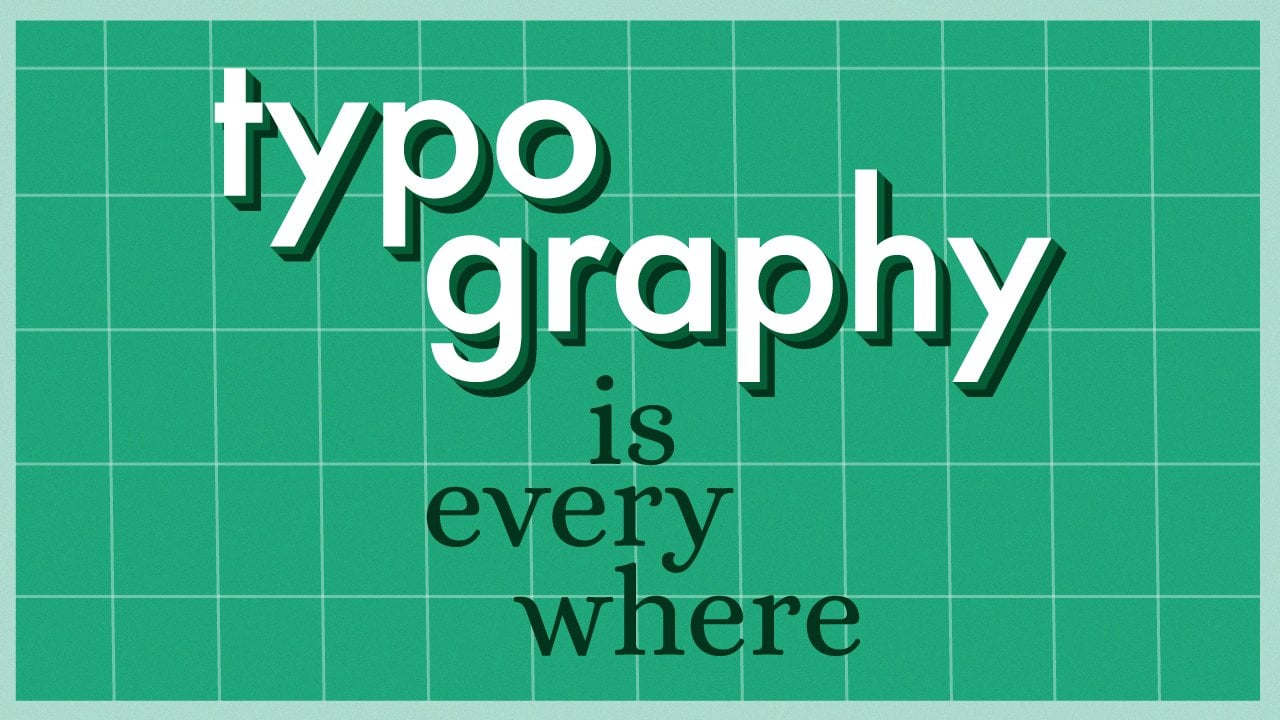
Typography is Everywhere: Navigating Fonts, Tone & Composition
Type is everywhere! In our emails, social media posts, street signs we drive by and someone designed all of it. There’s a lot you can express with fonts that already exist.
In this class, you’ll learn how to communicate with type! You'll learn basic terminology, how to pick and pair fonts, and arrange those fonts in a captivating composition.
We’re all designers in the digital age. So this class is for everyone! But especially for creatives, content creators, and graphic designers looking to improve their social media posts, portfolio websites, or work as a whole. When you understand how to work with type, it improves your everyday visual communication skills and you can communicate tone, importance, and meaning effectively.
Throughout this class you will learn:
• What typography is and basic terminology, like type families, kerning, and leading.
• How to communicate tone using keywords and selecting appropriate fonts.
• How to sketch ideas and then bring them to life using design applications like InDesign.
• How to self-critique save your files to be used in the world!
No prior knowledge is required for this crash course in typography, but some basic drawing skills and familiarity with programs like InDesign, Illustrator, and Photoshop will be helpful.
1. Introduction: Are you jealous of letters? Have you always wanted to get into hand lettering, but just don't have the time or tools? Try starting with typography. There's a lot you can express with fonts that already exist. When used intentionally, typography can convey theme, mood, and set the tone of your project. Hey, I'm Caroline, a graphic designer and artist who has always been fascinated with Type. One of the first graphic design classes I took in college was typography, and it really opened up my eyes to how type is everywhere. It's in our emails, it's in our social media posts, it's on the cereal boxes that we see every morning, it's on the street signs that we drive by and somebody designed all of it. It really made me realize that everything from the text in our books to movie posters was thoughtfully made design. In this class, you'll learn how to communicate with type. Typography is the art of arranging type to make the written language readable, legible, and expressive. It's how you say something, like the voice you speak with. Today typography is a very accessible and popular field. We went from having a few styles of Britain language that were controlled only by a handful of skilled artisans, to probably millions of styles that can be controlled by anyone with basic software on their computer. We're all designers in the digital age. That's why this class is great for everyone and everything. It'll be especially helpful for creatives, content creators, or graphic designers who are looking to improve their portfolio websites, social media posts, or really bodies of work as a whole. Even traditional artists can get something from this class. Because it teaches you basic visual communication skills that help you communicate meaning and tone in everything you do. We'll start with basic terminology. You'll learn everything from what is a glyph to the difference between leading and kerning. Then we'll go over how to pick and pair fonts. There's a lot you can express when you understand what fonts have been associated with moments in culture and history. Finally, we'll practice how to arrange your type into a captivating composition. For your class project, you'll design a postcard to promote an event, real or fictional. You'll go through the process of sketching ideas, designing the postcard, and then critiquing your own work, the full design workflow. To streamline this process, I've prepared a workbook with a series of exercises so you get a chance to experiment and get a feel for what fonts you're drawn to you and when they are most appropriate. No prior knowledge is required to join this class. But a basic knowledge and familiarity with programs like InDesign, Photoshop or Illustrator will be super helpful. By the end of this class, you'll not only have a beautiful postcard, but also a way to express yourself with the fonts that already exist out there. Let's look at the world through the eyes of a designer. 2. Project: To practice your new topography skills, I'd like you to create a five by seven inch postcard to promote an event of your choice. This is a common design project that exercises basic topography and composition skills. We'll get to go through graphic design workflow of sketching, designing on the computer and critiquing ourselves. After you finish making your printed postcard, you'll also have the option to design a digital social media posts for Instagram. Before we even start, you'll need to come prepared with a few things. You'll need the following pieces of information for your final project. Event title, date and time, location, a sentence or two describing the event, dress code of the event, and how people can RSVP. This can be a completely made up event, or it could be one of your favorite events that you've been to before. You'll have to decide what program you'll be working on. I'll be working on In design because that's what I'm comfortable with and what I normally use to create printed design materials. You can also use Illustrator or Photoshop, whatever application you're comfortable with. In the project resources, you'll also find a workbook to help you perfect your skills along the way with almost each lesson. Follow along with a quick exercises which will offer more interactive and visual ways of learning about topography. There will also be a reading list and a bunch of resources that will help keep you inspired and learning the terminology and giving you example of how you can design in your own projects. Let's get started. 3. What is Typography: Let's start with the question that everyone's wondering, what is typography anyway? Typography is the art of making the written language legible, readable, and expressive. Let's talk about those three things a little more in detail. Legibility is the quality of being decipherable. Can you actually read the language? An example of legibility can be seen in display typefaces versus text typefaces. Display typefaces should only be used for large text, like titles and headlines, because they are less readable at smaller sizes. Texts or body typefaces, on the other hand, work well at smaller sizes. For example, the original Garamond was designed to be highly legible and printed and designs with a lot of small text on the page. Problems with legibility, it can leave your readers unable to understand what you're trying to communicate. Readability is the quality of being easy and enjoyable to read. An example of a readability issue was seen in the 2000 US presidential election ballot, where a misaligned rows became confusing to voters and some people even voted for the wrong candidate. Problems with readability can leave the reader understanding your language and what you're trying to say but they might have a hard time getting through it. Expressive as the fun or appropriate style that you as the designer to the arrangement of that type. Don't be afraid to have some fun while working on your designs. If you're properly communicating and organizing the information that you need to communicate to your readers and you have fun while you're doing it, people will notice, and that's 1, 1 plus 1 equals three instead of just two, it becomes something special and more. An example of expressiveness is found in movie posters. You might see one and maybe don't know what the movie is about, but you can get a sense of its tone, time period, etc Just from seeing the poster. These two posters for two very different movies, both use similar typefaces and their titles, but Singin' in the Rain is laid out in a playful bouncy and curvy way, while Psycho is splitting or breaking up or shattering and a very unsettling. Typography is the art of making the written language legible or clear to understand, readable, or easy to understand, and expressive or fun or appropriate to understand. Next, we'll cover the basic building blocks of type that will help you quickly choose your fonts for your design projects. 4. Basics: Type Families and Spacing: Now that we've defined typography as the art of making the written language legible, readable, and expressive, let's learn more about the building blocks of what makes up type. In this lesson we'll start building your type vocabulary which will help you to quickly decide on which fonts you want up front in your design process, and be able to make the small spacing tweaks that will make a big impact in your designs. When I was first learning typography, of course, my professors gave me a ton of books to read, a ton of worksheets with the definitions all laid out for me, but it wasn't really until I actually saw type that I began to grasp those concepts. What I mean by seeing type is looking at old methods of type that everything on the computer comes from. Different terms like leading and glyphs, all come from letterpress and movable type. I'm going to teach you the following important definitions by explaining a bit of traditional methods of printing. People have been using letterpress machine since the 15th century. Typesetters carefully assembled little metal or wood-puzzle pieces into words, sentences, and even pages of type to create book pages, posters, anything with printed type on the bed of a letterpress machine that was then inked, enrolled onto piece of paper like a big stamp. The puzzle pieces I mentioned that those typesetters were grabbing are the basic building blocks of a typeface. They're called glyphs. A glyph is a specific shape design or representation of a letter, numeral, or symbol. This is actually a glyph that represents two letters coming together called a ligature. Groups of glyphs in one style, weight, and width make up a font or a typeface. Just so you know, there is a technical difference between a typeface and a font, but nowadays people just blur the two terms together and use them interchangeably. Let's take a look at a typeface everyone knows. Times New Roman Bold, where bold defines the weight. Times New Roman Regular is a different typeface where the weight is lighter. If you only have to use these two very similar but very different typefaces in your design, you would still have a lot of flexibility and ability to build that strong communication that your audience is looking for. For example, you could start by setting all of your type in regular, and then where you think different areas are important, you could bold those and that way they would stand out from the regular, and you would have a really great hierarchy getting started and a great communication that tells your audience what's more important than the other text. Times New Roman Bold and Times New Roman Regular are each their own typeface, but they have a particular design that they share, thus they make up a font or a type family called Times New Roman. The whole family is made up of Times New Roman Regular, italic, medium, medium italic, semi-bold, semi-bold italic, bold, bold italic, extra-bold, condensed italic, and condensed bold. That's a lot of typefaces. That's why it's best to start your design process by picking out two or three typefaces that you want to work with so you won't get overwhelmed. Factorial letterpress machine. We already talked about glyphs and the type families that get printed onto the paper, but we haven't talked about the spacing pieces. These pieces are invisible and they don't get inked or even printed but they're necessary to build your design. There are two types of spacing that we're going to talk about that is essential to any design project. The first is kerning or the adjustment of horizontal space between glyphs. This spacing is meant to create uniformity in the type when your eyes glide across the words. Your computer will automatically space things, but it's up to you as the designer to really use your eye to see if anything's looking funky. For example, you could have one word that has too much space in the middle of it, and then it starts looking like two words, and that obviously is going to affect your legibility and readability that we talked about in the last lesson, so you want to make sure that everything is looking together and looking uniform. You could also have the opposite issue, where things come together too closely and then your word just ends up looking like a big old blob, and that will obviously affect legibility and readability too. Pull out your workbook and turn to the kerning exercise. There are three paragraphs here. One has a good amount of kerning, one has too much kerning, and one has too little kerning. If you can't determine which paragraph is which, squint your eyes or remove your glasses to get a better sense of the overall color and spacing. Another kind of spacing is leading, which is the vertical space between lines of type. Similar to kerning, you don't want the spacing between your lines to get distracting for your reader. Use leading strategically to help build different groups in your lines of text or create a negative space or a break for your readers eye in the composition. Pull out your workbook and turn to the leading exercise, which has a set of information that could be found on a movie poster. Cut and arrange the lines of text and space them out vertically in different ways to see how you can group different lines and change the rhythm for your reader just by using vertical space. That was a lot of texts, background, and definitions, but hopefully learning about the history of the letterpress machine will help you grasp some of these concepts. Don't forget the constraints are your friends. Don't go crazy by working with too many fonts. Pick a couple of fonts within the type family to stay cohesive. Avoid distracting space between your letters or between your lines of text. These tips will really help you get started on any design project. In the next lesson, we'll move on to a more fun part of building our type vocabulary, and learn about the different styles of the typefaces that we were just talking about. 5. Next Level: Classification and Tone: Now that we've learned to start your design with just a couple of fonts and to avoid distracting spacing, let's talk about how different styles of fonts are categorized or classified. This will really help you pick appropriate fonts for your design process. We could really get into the weeds and talking about type classification or the different styles of typefaces, but let's just talk about the big umbrella terms. You don't need to know the little subcategories and all that stuff. I don't even know that. If you know these basic umbrella terms and the basic skeletons of the different styles of typefaces, you'll be able to really quickly pick out what's appropriate for your design. Let's go over the groups that all typefaces fall under. Serif, with decorative strokes at the ends of their main strokes. Sans serif without serifs. Script, derived from handwriting or calligraphy and decorative typefaces, which is a very diverse category that is more ornamental and doesn't really fit into the other categories. Instead of just looking at the basic definitions and all that boring history that comes along with each of these categories, let's focus on the tone that you want to communicate and figure out which typefaces fall under those tones. One of the first steps in your design process, will be selecting your typeface or typefaces that you're going to be using throughout the whole process. Before you can even do that very important step, you need to backup and ask yourself, what tone am I trying to communicate? Once you have that answer, you can appropriately select your typefaces and that way they'll be consistent with the tone that you're trying to communicate. Here are some examples of fonts and the tones they represent, and how they do fit on some instances, but for some situations they don't work so well. San serif typefaces like Univers or Helvetica are really straight forward and clean. They don't really have a tone, so they work well to communicate straight forward information like street signs. In contrast, it would be super strange to have a black letter font on street sign because it's really dark and heavy and gives a weird gothic tone. San serif fonts like Futura or Avenir work really well in many applications. They're very clean and clear and look like basic shapes. In contrast, it might look weird here to use script font like Mistral or Sign Painter because they feel to human made, have too much personality. Serifs like Bodoni or Didot are dramatic because of their high contrast, and they work really well in modern and fashionable situations. In contrast, it would be really strange here to use an inscriptions typeface like Optima that looks chiseled into stone or engraved into metal. It appears really important and long lasting, but it's a little too official or ceremonial. Script fonts like Snell Roundhand were derived from centuries old cursive handwriting. They look, super elegant and formal. In contrast, here on table cards for maybe a wedding, it would be really strange to use a heavy and compact font, like knockout or impact. Those just look really heavy, bold and modern. I would avoid that very thin typefaces for large areas of texts because they can easily disappear when they get to a big scale. For small text, some typefaces were designed specifically for that use. For small body copy, I would recommend using serifs like Minion, Garamond or Times New Roman, or sans serifs like Myriad and Avenir. Of course, these are just recommendations, and you can totally bend the rules if that's what's best for your project. This process of figuring out which typefaces to use for your project should be pretty intuitive, but if it's not really coming to you, you can totally look at different books or use your computer to figure out what different typefaces were used for. If you're making a spooky movie poster or you can just google typeface for boogie movie poster and I'm sure a hundred things would pop up. Don't feel too intimidated by any of this, it will come to you. The best way to experiment with tone and type is to practice. Take a couple of minutes to match the different fonts below with the tone words above that they pair up with. See how intuitive and easy it is to associate tone with fonts. While we're talking about tone, let's move on to the next exercise where we'll start thinking about our final project for the class. Here I want you to brainstorm a few words, that sum up how you want your final project to feel. Refer to these keywords as you design to keep you on track. For my garden party project I already brainstormed a few words that I immediately came up with. From this list, I am going to select just a couple. I think I'm going to do something that's really modern felling, and then maybe something moody. That's different from when you first think of garden, which you would probably think of like flower and bright. That's what first comes to my mind anyway. I'm going to try doing this slightly unexpected twist on the garden party that's a little darker and moodier. Once we get on the computer, we'll pick our fonts. Just focus on deciding your tone words for now. Your keywords can be anything, but make sure they somewhat relate back to your event theme. Get brainstorming. Don't forget to start by picking out your font or fonts by asking yourself, what tone am I trying to communicate through this design? Pick your typeface or typefaces based on that tone that you picked. If you're not sure if your typeface is appropriate for your design, search for information online or in books. In the next lesson, we'll talk about a little more advanced part of the process, which is combining typefaces. 6. Advanced: Combining Typefaces: We started building your type vocabulary by looking at type families and different spacing, and by looking at how different typefaces are falling into different styles. Now we're going to do a next level stuff and figure out how to combine two different fonts in your design. You don't always need to combine two different fonts, but it can be helpful if you decide that your tone is formal, for example. You want to use a really cool, really bouncy, swashy script font. That's great, and for the title of your event, if you're making an event invitation or something like that, that script font could work really well. But if you're going to have smaller text on the page like dress code information, for example, you might not want to use super small script font because that can all mush together and just be really hard and uneasy to read. In that case, you would want to use that script font for the bigger text in your design, and then a really clean simple font for the smaller text in your design. That way you're maintaining that really great legibility and readability for your audience. You want to find a balance when finding a pair of typefaces that work well together. They shouldn't be so similar that they look almost identical, just use the same font if they look that similar. They shouldn't be too different where the overall tone of your project gets a little lost. Here are two super simple formulas to help guide you in your font pairing process : bold plus thin and personality plus neutral. Let's talk about some examples of combinations and why they work and why they don't work. Playfair Display and Roboto. they work because serif with some personality for larger text and a clean sans serif for smaller text really complement each other well. Bodoni and Playfair Display. They don't work so well because they're too similar and they don't have enough contrast. Dancing Script and Open Sans, they work. Because it's a bouncy leaning script to make a statement with personality, in an upright sans serif to hold the smaller text together, they work really well. The sans serif really grounds the script. Dancing Script plus Lobster. They don't work so well because they each have their own really distinct personality and the overall tone that is trying to come through just gets lost in the competing styles. Futura Bold plus Georgia. They work because the bold sans serif and the thinner serif really contrast each other nicely. Again, there are no right or wrong answers here. You compare whatever font with whatever other font you want. But if things are looking funky, you can always head online and see if people have paired those two fonts before. If you already have one typeface selected and you're not sure what to pair with it, I'm sure you could look it up and somebody has an answer. In this section, you can cut out different title options and different headline options, and just play around with how they pair together. Are they too similar? What combinations are coming through that you like and think work well? Combine typefaces when you want or need variety. Follow the basic formulas: bold plus thin and personality plus neutral. Have fun and experiment with your type combinations. In the next lesson, we'll take a look at the big picture and learn how to design a composition that helps strengthen your typography. 7. Composition & Hierarchy: We've learned all about the basic and advanced skills involved in topography. Now it's time to get designing and to make a composition that will really show off the topography that you've spent so much time learning and perfecting. In order to do that, we're going to talk about composition. Composition is how elements on your page will be arranged. You get to do that, it's a little scary, just staring at a blank computer screen or a blank page but I do have a tip that will help you get started and not be afraid of the blank page and it's called a grid. Grids will make up the framework of your projects composition. It is always better to set up a grid when you're starting your designs because once you draw up the grid guidelines, you don't have to think about where the design elements should go. They should all line with each other on the guidelines you've already made. No more mysterious blank page. Grids will also tell you if your elements are aligning with each other or if they're a little off to the side and you need to scoot them over a bit. You always want everything to align within your grid and your composition because that makes a really strong structure. Like in architecture, when you're building a skyscraper, you want all the pieces to align and support each other, which will strengthen the building and provide a safe space for people to move around inside. You don't want pieces hanging off of your design because that creates a very unbalanced and unsafe space for your design elements to live in your page. Here are some examples of basic grids that will help you build a strong structure for your design. One column grid, two column grid, three-column grid, and modular grid. You can make a 10 column grid if you want to. It's all up to you and there are no right or wrong answers. When you start up your grid and start placing your type and imagery with it, you should always keep hierarchy in mind. Hierarchy is the organization of your design elements according to importance. Consider hierarchy throughout your process because that will help you make decisions. For example, if you decide that your title of your event is really important and the most important thing that should be in your design, make it really big and centered on the page. If you need to include a certain picture with a certain photo credit, that's maybe less important information, so you might want to shove that in the bottom corner and make it really small. If it helps, once you have all of your text, make a list of how important the text is from most important to least important. Then let that guide your design process and help you decide things like size, relationship of your texts and what elements should we placed on your grid. If you're lost and you don't know where to start in picking out your grids, don't worry, we will go over that in the next lesson where we will do thumbnail sketching exercises. These quick thumbnail sketches, you can quickly try a bunch of different grids on a piece of paper before you even go on to the computer and see what might work for you and what might not work for you. It's all trial and error. Let's spend about 10 minutes laying out the lines that we used and cut out in our letting exercise earlier. Now feel free to change up the spacing completely. See how many different layouts you can make and how they change the rhythm and pace of the text. Let's do a quick recap. Don't forget to set up a grid as a framework to your design projects. Design your composition with hierarchy or order of importance in mind. In the next lesson, we will start thumbnail sketching and practice making these grids and compositions. 8. Thumbnail Sketching: Earlier, we picked our 2-3 tone words or keywords that will describe our entire project and keep us on track. But up until now, we haven't really even worked on our postcard project until now. Now, we are going to start sketching and coming up with ideas on how our composition can come together. We're going to do that by doing some quick thumbnail sketching. I want you to do at least 15 little thumbnail sketches. In thumbnail sketching, you are going to draw a series of little boxes into a grid. You're going to make little notes inside of your little box. Those notes are going to be the sketches of how you want your composition to be laid out. You're going to make these really quick, really simple, abbreviated sketches just to get out as many ideas as you possibly can. Here's a blown-up version of one of these little boxes. Fill it with a bunch of shapes. The shapes are going to be abbreviations for pieces of your content. For example, you can use a big rectangle that's really dominant in this little sketch, and that'll represent a big piece of type. You can make slightly smaller rectangles or shapes to abbreviate your medium size type, and then really little shorelines for your smallest text. If you want to add them photos or illustrations, you can make a little shape with an accent side, and that'll be the abbreviation for your photos. Then if you want to make any other decorative elements maybe a border, you can just add squiggles. When I first learned this thumbnailing technique, I was always told to do at least 30 thumbnail sketches. I remember at first being, there's no way I can ever do 30 sketches. But once you start going on just flows out on the paper, and you can always take breaks. You don't need to sit down and do 15 or 30 or however many you want to do all at once. You can always do five and then take a break, come back to it, get ideas from what you've already done, and maybe switch things around a little and make a few more sketches. I'm going to start with my garden party sketches, keeping in mind different grids, seeing how I can start with my most important piece of information, the title and still other information, like the date and location around the title. I'll try a one column grid, a two column grid and more modular grid, maybe some more diagonal movement where the pieces are coming down in steps. I'll try moving the title around the composition, and again, moving everything else around that title. Push past the basic first ideas that pop into your mind and get to something really interesting and thoughtful. It's always really fun to see how you come up with two, I move the title around in different ways, experimented with doing a little horizontal and vertical and the layout. When you think you can't sketch anymore, draw one or two more to see what you come up with. Now I can look at all of my sketches and pick out my favorite one that I want to pursue. I think I want to pursue the 14th sketch here. I think it has some nice movement, some diagonal movement, and then a little room for some flourishes in the corner there. I'm going to pick up that one sketch. Once you're done with all your sketches, look back, pick out your favorite one, maybe the one that you're most excited about, maybe one that you're not sure about, but you want to see it become real on the computer. Continue making all of your sketches until you're happy. pick out your favorite sketch, and join me on the computer in the next lesson. 9. Print vs Digital Workflows: If you're just making a printed postcard for your project, feel free to skip this lesson because we'll be talking about print workflows versus digital workflows. If you do want to make a digital element and redesign your postcard into a digital Instagram ad, then feel free to stick around. If you work on a job like this for a client, you will probably have to make print components and digital components, and it can be really great to learn the skills needed to transfer one to the other. Something I like to do is start with my printed designs, because they require more attention to detail, and higher resolution assets like imagery and photos illustration. Here are some common specifications and considerations for designing print materials. Print is always more costly, so you would have to ask, does it fit into your budget? You always have to work with higher resolution assets, at least 220 DPI. Work in a program that's more suited for print like InDesign. You'll also have to work and save in CMYK color mode or cyan, magenta yellow and key or black. Save your file as a higher resolution, ideally 300 DPI file, like a PDF. Here's some common sparks and things to think about when designing digital materials. Digital materials are free to post unless you pay more for ads to be boosted or posts to be boosted. You can always work with lower resolution assets that are at least 72 DPI. You can work in a program that's more suited for digital like Illustrator or Photoshop. You can work in RGB color mode or red, green, blue. You can save your files as lower resolution files, at least 72 DPI, JPEGs, PNGs or GIFs are common. Now, I'll talk more about setting up our files on the computer. 10. Set Up Your File: Before we really jump into designing, will need to set up our files on the computer first. As I mentioned before, I'll be using InDesign for this project because it really focuses on typography and printed materials. Illustrator focuses more on things like vector illustrations and Photoshop focuses more on photo editing. If you are working in programs like those, you can still find the same tools, but it might be harder or they might have a lot more limitations than in InDesign. Step 1, create a new file, go up to "File", "New Document". Name your file. I always change the units to inches and put the size 5 inches by 7 inches. You can always press these little buttons to change the orientation from horizontal to vertical. Uncheck "Facing Pages" make sure you set your margin, so they aren't too close to the edge of the page. Use at least three-eighths of an inch or 0.375 inches of space on all sides of your paper to make sure elements don't get cut off the printed page. Set up your bleeds so your printed file will have color or images that run all the way to the edge of the page. Step 2, set up columns and rows. This is when we start to set up our grid. Click ''Set Guides'' to margins so they will always stay in the margins once we set them up, check preview, so you can see what it will look like once you start changing the number of columns and rows, start by setting something up that looks like your thumbnail sketch. For example, my sketch used a three-column grid, I'll start my file with three columns. You can always change it if it's not working out while you're designing too, and it's really good to try out different grids once you have all of your texts placed. Here's a very important quick workflow tip. Always save your design every few minutes. When you have a break, get to a stopping point and just go ahead and quickly hit Command S it'll just become second nature to you and it's always great to save if your computer crashes or if InDesign or whatever program you're using crashes, you don't know if that's going to happen and it could happen at any time. You always want to keep saving as much as possible, so that way you don't have to go back and redo the things that you've already spent so much time working on. Step 3, create your Text Boxes. Copy and paste or type in your event text into your new document. Arrange in your grid according to your thumbnail sketch. Sometimes working with your actual words fit very differently on the page than when you imagined how they would fit in your sketch. Right now just go all the text on your page and place it roughly according to your sketch. Then set each Text Box roughly in the correct size that you want. For example, here I've created three sizes or three levels of text, large, medium, small. It's easier to keep spacing consistent if you keep your texts together in less boxes. Don't separate each and every line into their own textbox. Next, we're going to pick out some colors, look for inspiration on websites like Pinterest or Adobe color and start with two colors. You can always add more later and you don't want to get overwhelmed to thinking about color. After all, your focus should be on typography, but you're going to want to pick your colors with your keywords or tone in mind. One of my keywords was moody. I'm going to pick a darker, moodier background color to go with that tone. You want to create swatches to use throughout your process. You can adjust the swatch and if you ever need to tweak the color, it will change everything that set in that swatch, which makes deciding your colors really easy and ensures that you're using the same colors across your whole design. Then for my text color that's going to be on top of that dark background. I'm going to go with a lighter color that will look good and readable. Pick your two colors and get ready for the next lesson where we will be diving more into designing our postcards. 11. Design Your Postcard: We've set up your file, we've sketched out a bunch of sketches, now it's time to finally get designing. Step 1, you are finally going to pick out your typeface or typefaces. Now you already should have your text, copy it and paste it or typed into your document. But it's just sitting there in the default setting. You didn't pick this type, the font was just generated by your program. Now we're actually going to think about your tone, keywords and pick out your typefaces appropriately. I know I want to use two fonts, one for my title and larger texts that helps my modern tone come through and one for my smaller texts that can be clean and easy to read. When I think modern, I think of something like Bodoni that's dramatic. Let's try Playfair Display or some Google font that's a little more modern and up to date. That looks pretty good to me, very modern and sleek. Now I want something clean and simple, easy to read that pairs well with that Playfair Display font for my smaller text. Let's try a few different things. There's a lot of clean sans serif fonts that I often use. Let's see what looks best with Playfair Display. Open sans, looks pretty good to me and it's also Google font, if you want to download that. It's helpful to use the eyedropper tool to copy characteristics of one textbox to another. Just pick the eyedropper tool, select an area of type and then highlight another area of type that you want to copy the characteristics over to, so now they're the same. Now we want to check out our line breaks now that we have the rough placement size typeface that we want. You don't want any hyphenation on because the line breaks can be distracting when there's only a little bit of text on your page. Make sure you check off the hyphenation and make sure all of your lines are roughly the same length, so none are distracting really short or long compared to the others. Now that I have the text set pretty close to how I wanted it to, I am actually going to adjust my grid because I think I can get my composition a little tighter. It's a little spread out. I think there's too much space between garden and party and they become too disconnected. I'm going to delete my original guidelines and try some new columns and rows until I feel like the spacing makes sense. Again, this is all trial and error. Step 2, you're going to look at your colors again. Now you should already have two colors at least in your document, but now that you have your typeface picked out, you should really see if the colors have enough contrast with your type. For example, I'm using that dark background. If I use like a really thin typeface, my type on top could very easily disappear into that dark background. I would need to make sure that there's enough contrast between those two colors that I already selected. I'm actually pretty happy with my colors and I think they offer a good amount of contrast. Step 3, you are going to add imagery. This could be a photo, this could be an illustration, it can be whatever you want or you could even skip the imagery if you don't feel it's appropriate for your postcard. I found this floral image that will help communicate a garden which is where I want my event to take place. I wouldn't want to select an image of gardening tools or something that would give the wrong impression of the event, which is a formal cocktail party, not a gardening event where we're planting flowers and arranging flowers and things like that. When you create an image frame and drop an image in, you can move the frame around and it won't affect the image within, so it won't distort your image if you pull out the frame. If you want to move the image in that frame, you just double-click inside or find the circle button within the frame that changes your cursor to the hand icon, then you can drag the image around inside the frame. Instead of putting a small image on the left side of my page like I was originally thinking in my sketch, I ended up working better as a background image that spreads across the whole postcard. It really plays into the modern and moody keywords with this multiplier effect on the image. Before the image was too colorful and bright and now it's subtle and really steps back, so the typography can take center stage. After playing around with a couple of different grids and images that I did by copying my original design to make a few different pages in my document, I'm very happy with how this is turning out. Step 4, one of the most important steps is to zoom out and look at everything you've done. Change the view on InDesign so you don't see the guidelines or anything that isn't on your page by clicking "W" on your keyboard. Make sure you can see the whole page by clicking "0" on your keyboard. Play around with your design until you're happy with it. If needed, adjust your grid, move things around, realign your elements to make new groupings and levels of information to see how you can change things to improve your composition. Once you're feeling good about where your designers at, take a break, step away and come back to it, in the next lesson where we will critique ourselves and then save a final version of your postcard file. [MUSIC 12. Critique & Save FINAL: [MUSIC] Now that you have a really good draft from the last lesson, print it out or look at it on the computer and get ready to mark it up and critique yourself. This can be a really hard step in the design process, but it's really necessary for improving your skills and just making yourself a better designer. Here is your self-critique checklist. Number 1, spell check. This allows you to avoid embarrassing and very easy to fix mistakes and avoid some back and forth with your client if you're designing for somebody else. Similarly, you want to do a quick grammar check and make sure you didn't forget to put a period somewhere. Make sure that all the text is really making sense, especially if you wrote it. Do all of your elements align to your grid or each other? Make sure nothing is falling out of place creating an unbalanced environment for your composition. Also make sure none of your elements are too close to the edge of the page. Double-check your margins so nothing gets cut off in the printing process. Make sure that all of your texts is consistent. Make sure every box of text is all set in the same size, if they're supposed to be all set [NOISE] in the same font with the same letting. Do you have any overset text? In InDesign, it should let you know before you save your project if the texts goes beyond the box that you created. Do all of your colors match? Did you use the same swatches? Or maybe you got a little mixed up in your design process, and one color is [NOISE] an old version, and one object is the new version of the color. If you're working with a team or getting feedback from other people, it's really important to keep an open mind. I know in my design work sometimes I can really get excited or fixated on a cool idea I thought I had, but it's really important to listen to other people's advice. Maybe you're too focused on that one idea when really you should be focusing on a bigger picture, and people should tell you that. It's always great to self-critique, but also get feedback from others. Now it's time to wrap things up and save our files. In each program, saving can be a little different, but I'll show you how I'll go through the process on InDesign. Before I even save my project for print, I like to double-check on a few things. I need to make sure that all of my linked photos and assets are set in CMYK color [NOISE] mode. If they aren't, I'll just quickly open them up in a program like Photoshop and switch the color mode and save. InDesign automatically senses that it was edited in a new version. It'll pop up and ask you, "Do you want to use the new version?" You say, "Yes, of course." I also really like to outline my fonts because if somebody else like your printer opens your file and they don't have the typeface that you use, it could get messed up and change to a default font. You obviously don't want that to happen because it will completely destroy your design. It just takes a few minutes. You go up into the menu and click, Create Outlines, and all of your text will now turn into shapes. Make sure you go up to the Save As and quickly change the name to this file by adding a dash OL to the end of the file name, that way you can still go back and edit the text of your original document. Make any changes you need to until you're ready to save your file. Now that we're ready to save, let's go up to File Export, Save as PDF. As you're saving this new file for print, you can add underscore print to the end of your file name so there's no confusion about which files should be sent to print when you're done working on this. We want to make sure the resolution is high at 300 DPI and include those document bleeds that we set up, so your images and color goes all the way to the edge of your card. Open your file once and it's saved on your computer, zoom in to a 100 percent and just scan around to make sure that everything is looking clean. Once that looks good, it is time to send your files for print. Remember, you don't actually have to print this out, but it is a great addition for your portfolio. You finally saved your file, you have your final version of your project. Congratulations. Now you just have to upload it to the project gallery. If you want to stick around and make a digital version of this, continue on to the next lesson. Otherwise, congratulations, you're all done. [MUSIC] 13. Design Your Social Post: [MUSIC] Now that we've finished with our print files, it's time to switch over to the digital files if you want to do that. Again, this is just optional, so feel free to skip this lesson. Basically, we need to take our print files, save them as a new digital version, tweak them a little bit because it'll be a different Instagram square shape, and then we need to save these files to use them online. Step 1, make your digital file. You're basically repeating the process of making your print file now. Create a new file for web, at 1080 by 1080 pixels. Step 2, paste your print design into your digital file. Start by copying and pasting your other design into this new document so you don't have to completely start from scratch. You can just adjust your postcard design. Step 3, make adjustments. Spend some time rearranging the elements in your composition because now you have this new square shape to work within. Try moving things around or making some quick thumbnail sketches if you need to go back to that stop which might be a fast way to get your ideas out, and try a few adjustments to the composition without moving everything around your computer. Something to consider and that's nice about digital is you can always link to more information. I'm actually going to delete the description and extra details that I had in my postcard because I can just post it elsewhere. I am a bit nervous that this background image might appear too dark or disappear on some screens. I think I'm actually going to lighten it by copying the picture, removing the effect, and having the original image sit on top at a really low opacity. It looks a little brighter and lighter. Then I'm going to play around with my grid until I find something I like that goes with the postcard design but works better for this square format. I don't want to change too much, but I want to keep the focus on my clean modern typography. Now I have more room to make that event title bigger without the smaller text. Don't spend too much time on this because you've already done the main design work in creating your beautiful printed postcard. Step 4, review and save. You shouldn't have to run through the whole critique checklist again because you already did a spell-check and all that good stuff in the last lesson. Go up to File Export and JPEG is what we're going to do this time. You can add underscore final to the end of this new file name, so you know that it's your final version and the one that you want to post. We're going to save it at a lower resolution, 72 DPI and RGB color mode is totally fine. Open up the file again and make sure everything is looking good, and nothing is too pixelated or looking funky now that you've saved it. Congratulations. Now you've done both the printed postcard and the digital social media posts. "Upload" your Instagram post to the project gallery along with your printed postcard, and see how other people transitioned their designs from printed postcard to digital social media post. Let's wrap up in the next lesson. [MUSIC] 14. Other Applications: You've learned so much about typography and now it's time to get out there and use your new skills in the real world by updating your portfolio website, switching up your Instagram page, or even just writing emails. For example, if you're requesting something in an email, you can write out all of your thoughts then bold important information like deadlines to make sure nobody misses that information. If you're making a portfolio website, decide on a tone that best represents you and your work. Then pick fonts and align with that tone. Lay out all the information about you and your work with hierarchy in mind to show the most important things on your homepage and at the top of your pages. If you continue practicing these skills every day, they will soon become second nature to you or they are to me anyway. I always critique type I see in the world and think of how we can improve the type and written language that we see every day. Now that you know the basic principles of working with type, you can confidently tackle new techniques like hand lettering that requires knowledge of spacing, letter styles and composition. Keep pushing your type knowledge. You also got a little bit of an intro into design thinking or a non-linear process of problem-solving. We started with a problem. How do you communicate and promote an upcoming event to potential attendees? We brainstorm solutions with thumbnail sketches and prototypes on the computer, then we tested our ideas and improved them by critiquing our iterations. Design thinking has become an extremely popular problem-solving strategy outside of the design world. You can bring this strategy with you in any part of your life by stating the problem, brainstorming some solutions, coming up with some iterations and prototypes, and then critiquing yourself to come up with the best solution possible. In this class, I hope you really gain some valuable knowledge about typography, but I also hope you took with you some great design problem-solving strategies that comes with the field. Next, we'll wrap everything up. 15. Conclusion: [MUSIC] Congratulations, you've come so far and learned so much in this crash course in typography. You've learned what typography is in basic terminology, how to communicate tone using keywords, and selecting appropriate fonts, how to sketch ideas, and then bring them to life using design applications like InDesign. Lastly, you've learned how to self-critique and save your files to be used in the real world. If you only take away one thing from this class, is that you can create really beautiful expressive designs, with the fonts that exist right in front of you. Now you have the skills to make the written language you use and interact with every day more meaningful. Practice makes perfect. Try improving your portfolio website, resume, or even critiquing the words you see on the TV, magazines, or in the news to practice thinking like a designer, in your everyday routine. You can also practice your skills and learn new skills on amazing Skillshare classes that teach you more advanced steps and other skills like lettering. Don't forget to post your thumbnail sketches and final project files to the project gallery, and let me know if you have any questions in the discussion section. I can't wait to see your postcards. Thank you so much for exploring typography with me. Make sure to follow me to catch my next class, and I'll see you next time. [MUSIC]